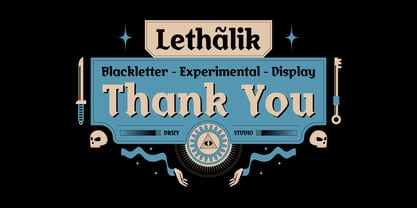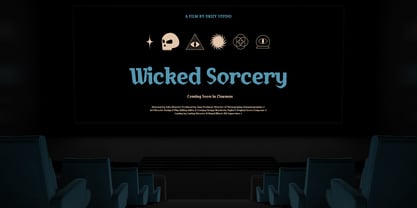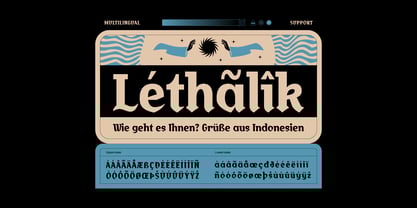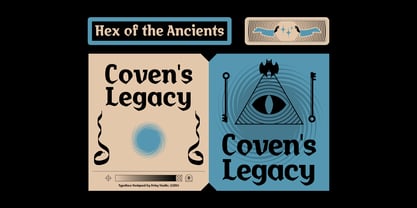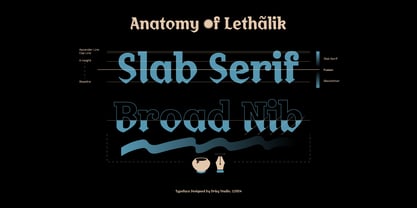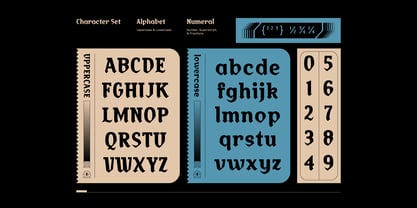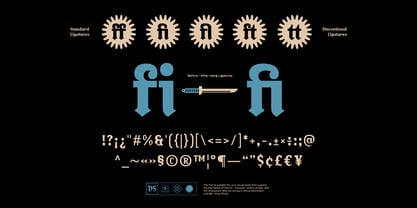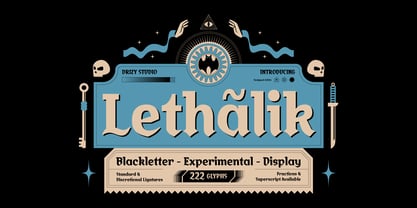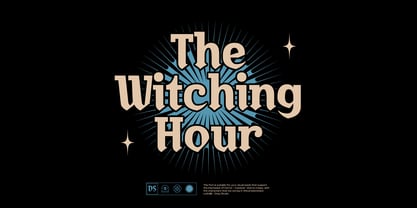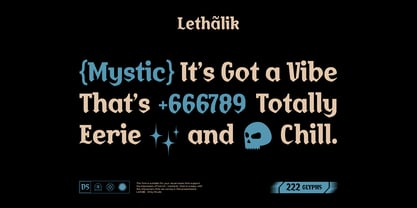
Lethalik
The Lethalik Font Family was designed by Panca Ahmadi Hasan and published by Drizy Font. Lethalik contains 1 styles. More about this family
Lethalik – Blackletter Experimental Display Font
Lethalik is a bold and captivating typeface perfect for any Halloween themed design. It’s sharp, gothic-inspired letterforms exude a sense of mystery and dark elegance, making it ideal for spooky posters, eerie invitations, and other haunted creations. The experimental touches add a modern twist to the traditional blackletter style, giving it an edgy, unpredictable feel. Whether you’re looking to create something eerie or avant-garde, Lethalik brings an intense, haunting atmosphere to your projects, making it a standout choice for Halloween and beyond.
Lethalik features:
• Character Set (Uppercase & Lowercase)
• Punctuation & Numbers
• Multilingual
• Standard & Discretional Ligatures